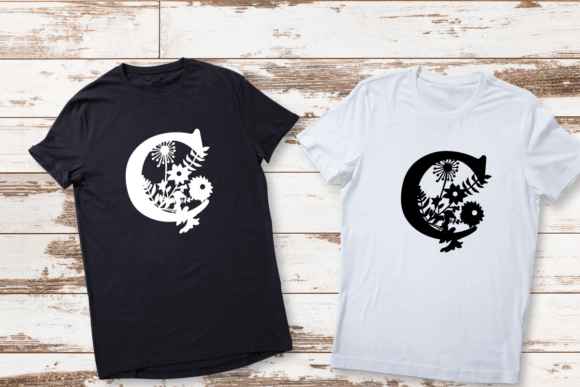
Introduction to Flowers and Butterflies Font
As you sit down with your favorite sketchbook, a blank page staring back at you, the excitement of a new creative project begins. The possibilities are endless, and the only limit is your imagination. This is where the right design resource can make all the difference. For those looking to add a touch of whimsy and charm to their work, the Flowers and Butterflies Font is an ideal choice.
This beautiful, high-quality font is perfect for writing a heartfelt letter, designing a greeting card, or even creating a beautiful banner. With its delicate petals and fluttering butterflies, it’s a true gem for any creative project. And the best part? It’s available for free download, making it accessible to designers of all levels.
Key Features of Flowers and Butterflies Font
- High-quality design resource featuring a unique floral and butterfly theme, perfect for creative projects.
- Unique characteristics include intricate details and delicate flourishes, adding a touch of elegance to any design project.
- Ideal for use in creative projects such as invitations, greeting cards, and digital art, where a touch of whimsy and beauty is desired.
Honest Review: Flowers and Butterflies Font
I recently came across the Flowers and Butterflies Font, and I must say it’s a lovely addition to any design resource. The font is perfect for creative projects that require a touch of whimsy and charm. With its high quality design and transparent background, it’s easy to incorporate into any design without overpowering the other elements.
Here are some of the things that work well with this font: ✨
- Unique and playful design that’s perfect for children’s books, magazines, and websites.
However, there are a few limitations to keep in mind: ⚠️
- The font doesn’t come with a wide range of styles or variations, which may limit its use in certain design projects.
Overall, I think the Flowers and Butterflies Font is a great addition to any design library. It’s perfect for personal projects or non-commercial use, and its unique design makes it stand out from other fonts. Just be aware of the limitations and use it wisely.
The Flowers and Butterflies Font is ideal for a variety of creative projects, including invitations, greeting cards, and children’s book illustrations. Its whimsical design makes it perfect for adding a touch of magic to your work.